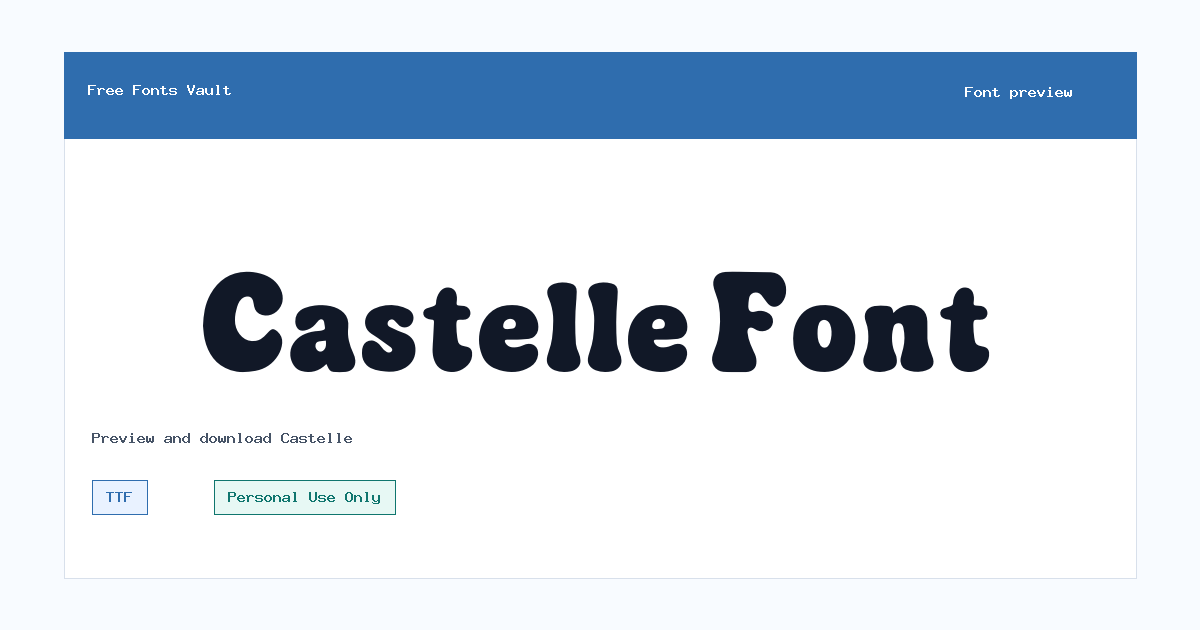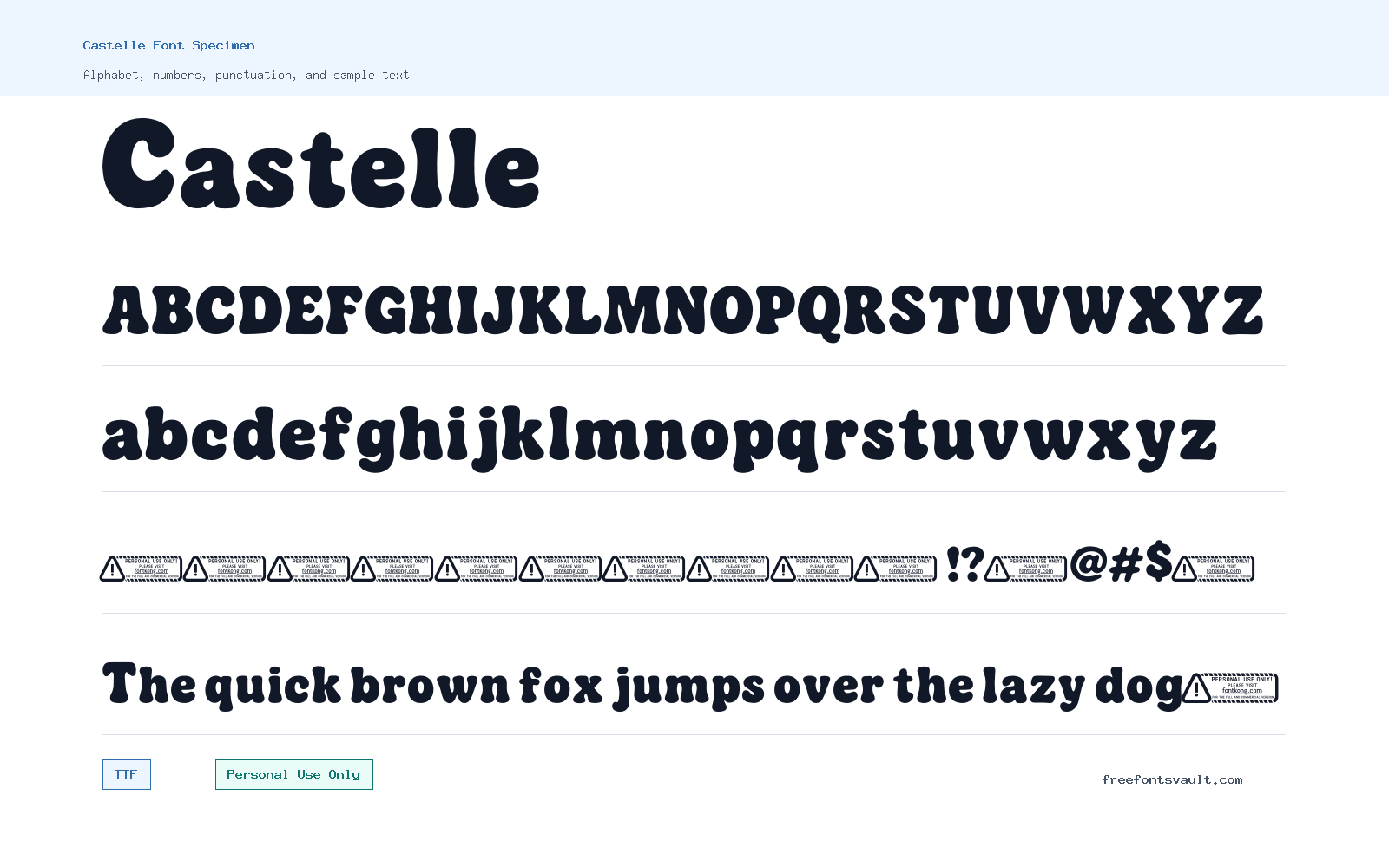
Castelle
- Designer Kong Font
- Foundry Kong Font
Castelle is a display font with a retro feel, rounded movement, and sharper decorative cuts that make it better for short text than long reading. It is a TTF font credited to Kong Font and marked for personal use only, so it works best for testing ideas, personal artwork, and non-commercial previews.
Castelle has the kind of shape that fits headline design: bold letterforms, curved rhythm, and a vintage display mood without needing much extra decoration. Sources describe it as a modern vintage display font, and that is a useful way to think about it when previewing your own words. Try it in large sizes first, because its personality comes through most clearly in titles, brand-style mockups, poster text, packaging studies, and social graphics. It is not the type of font most readers would choose for body copy, menu paragraphs, or dense website text. The decorative shape is the point, so short lines will usually look cleaner than long sentences.
- Retro display style suited to short headlines, logos, posters, packaging concepts, and social graphics.
- Decorative letterforms that work best at larger sizes where curves and sharper details remain clear.
- Personal poster designs, mood boards, school projects, and non-commercial social graphics.
- Logo drafts and brand concept mockups where a vintage display look is being explored.
- Packaging previews, label-style artwork, badges, stickers, and decorative headings.
- Website hero mockups or landing page visuals where the font is used sparingly for display text.
Use Castelle where the words are short and important. Start with a logo name, poster headline, product label, or hero title, then increase letter spacing slightly if the decorative shapes feel tight. Avoid using it for long paragraphs, small buttons, legal text, or navigation menus. For pairing, choose a neutral sans serif for descriptions and interface copy, or a restrained serif if the project needs a more editorial tone. Keep the companion font simple so the display style does not fight with another decorative face.
What kind of projects fit Castelle best?
Castelle is best for display uses such as posters, logo drafts, packaging concepts, headlines, badges, and personal social graphics. It is less suitable for long reading text.